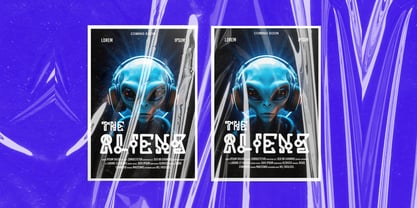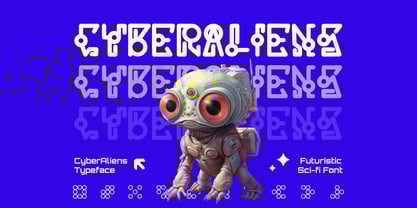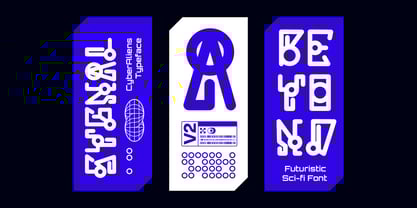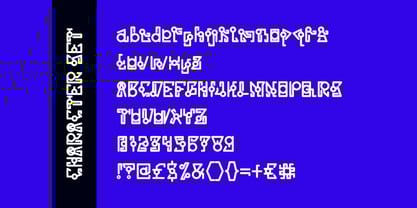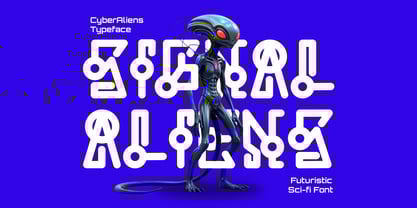
Cyber Aliens
by Shanaf
The Cyber Aliens Font Family was designed by Yesie Erma Yunita and published by Shanaf. Cyber Aliens contains 1 styles. More about this family
Cyber Aliens is a mind-bending futuristic sci-fi font designed to transport your visuals into another dimension. The letterforms are inspired by cybernetic systems, space interfaces, and alien scripts, resulting in an aesthetic that feels foreign, intelligent, and distinctly futuristic. Each character features geometric shapes, experimental loops, and rounded circuitry elements that echo alien communication systems. The font’s highly unique identity makes it ideal for standout designs in posters, movie titles, games, and experimental tech branding.
Perfect for those who want their typography to look like it came from a distant galaxy, Cyber Aliens works beautifully across print and digital. Whether you're branding an intergalactic product, designing tech packaging, or creating a conceptual zine, this font offers immediate impact. It supports full uppercase and lowercase sets, numbers, punctuation, and sci-fi-themed alternates. The bold layout delivers presence, while its coded vibe makes it perfect for logos, film titles, and gaming content. Let your audience decode the future, one glyph at a time.
Designers: Yesie Erma Yunita
Foundry: Shanaf